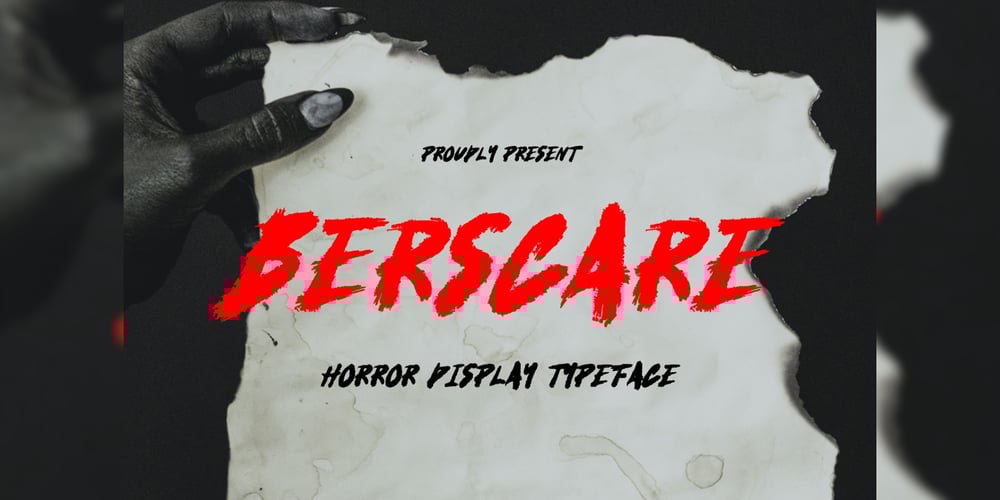
Berscare
Berscare font
Berscare Font Family was designed by Dhimas Habibie and published by Yumnacreative. Berscare contains 1 styles and family package options. Introducing Berscare – Horror FontThis Font is a delicate, elegant and flowing handwritten font. It has beautiful and well as a unique blend of ligatures a letter, so that the authors compose it with a and little swirly embedding, so that a modern font is formed and ready to make a statement by adding elegant and unique flair to your next design project. Add it to your most creative ideas and notice how it makes them come alive!FEATURES- Uppercase and Lowercase letters- Numbering and Punctuations- Multilingual Supports- Works on PC or Mac- Simple Installation- Support Adobe Illustrator, Adobe Photoshop, Adobe InDesign, also works on Microsoft WordHope you Like it.Thanks.